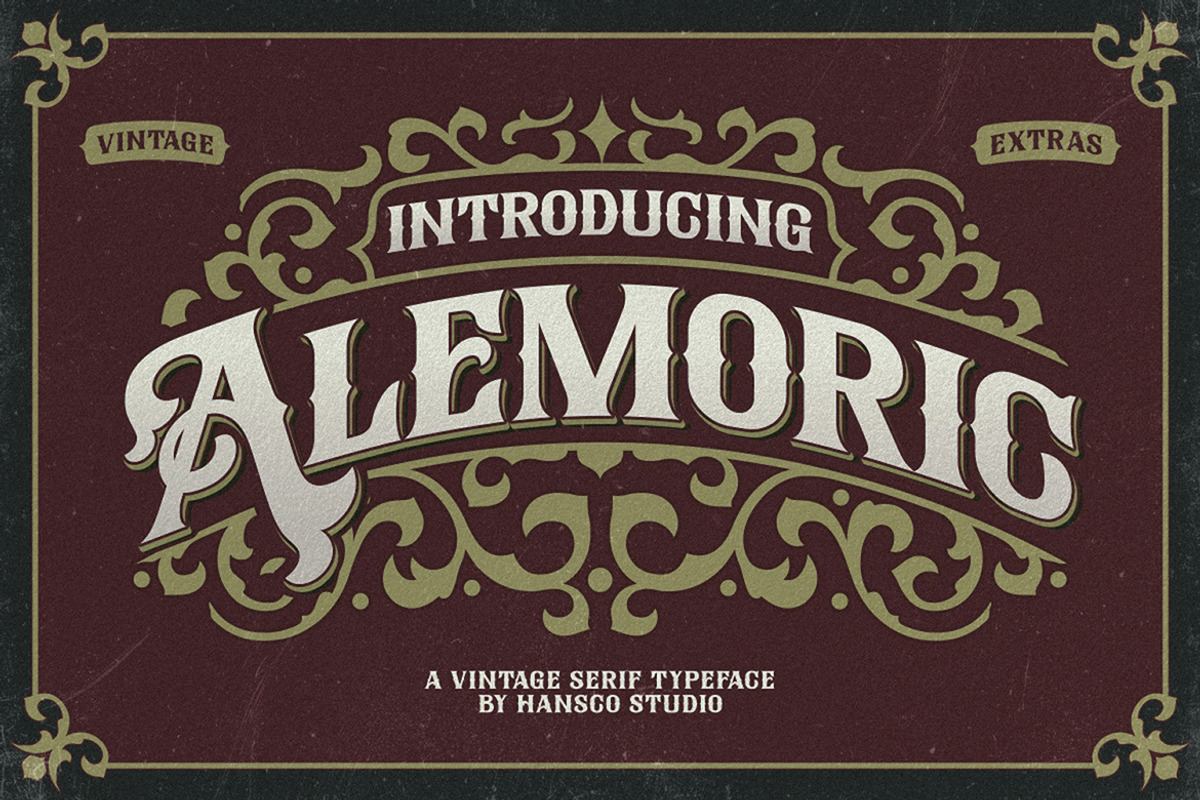
Alemoric - Vintage Decorative Font Free Download
Alemoric - Vintage Decorative Font Free Download is a beautifully crafted typeface that brings a touch of nostalgia and elegance to your designs. Featuring intricate decorative elements and vintage-inspired details, this font is perfect for creating eye-catching logos, posters, invitations, packaging, and branding materials. Its unique and stylish design adds character and charm to any project, making it ideal for retro, luxury, or artistic brands. Whether you’re working on a vintage product label, a creative campaign, or a retro-inspired event, Alemoric - Vintage Decorative Font Free Download allows you to explore its beauty in personal projects before purchasing a commercial license. Add sophistication and timeless appeal to your designs with this exquisitely designed vintage decorative font.